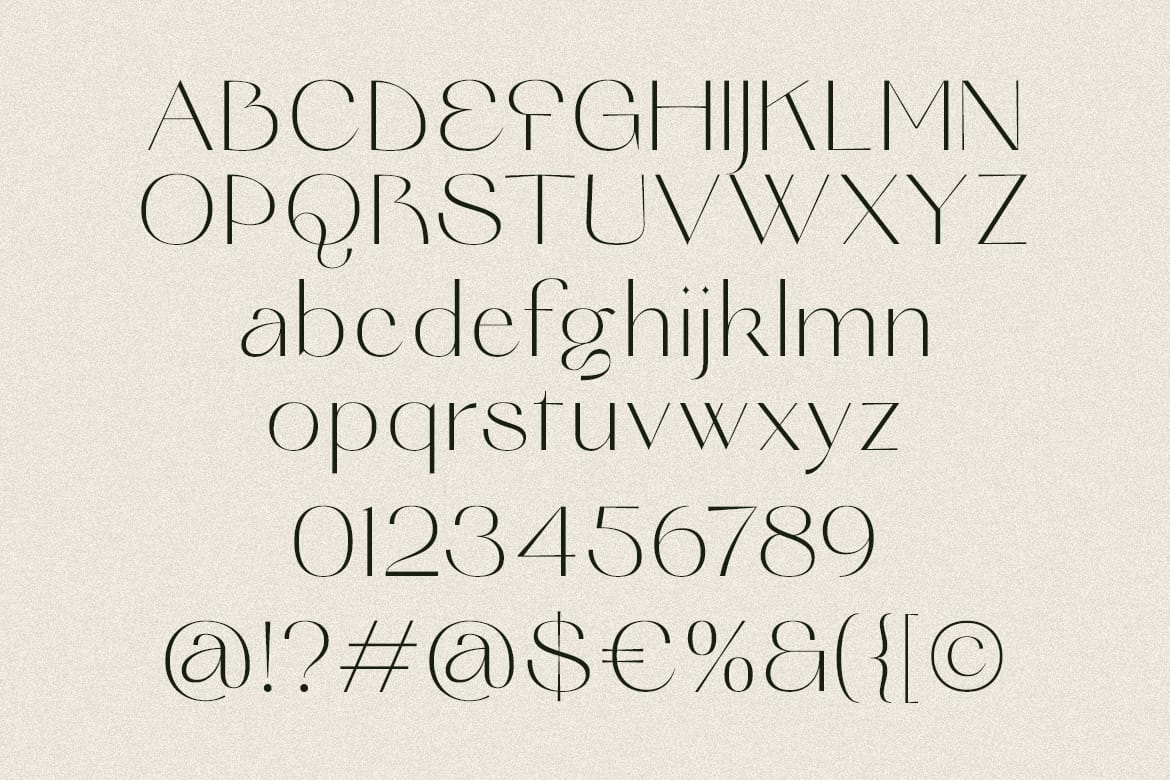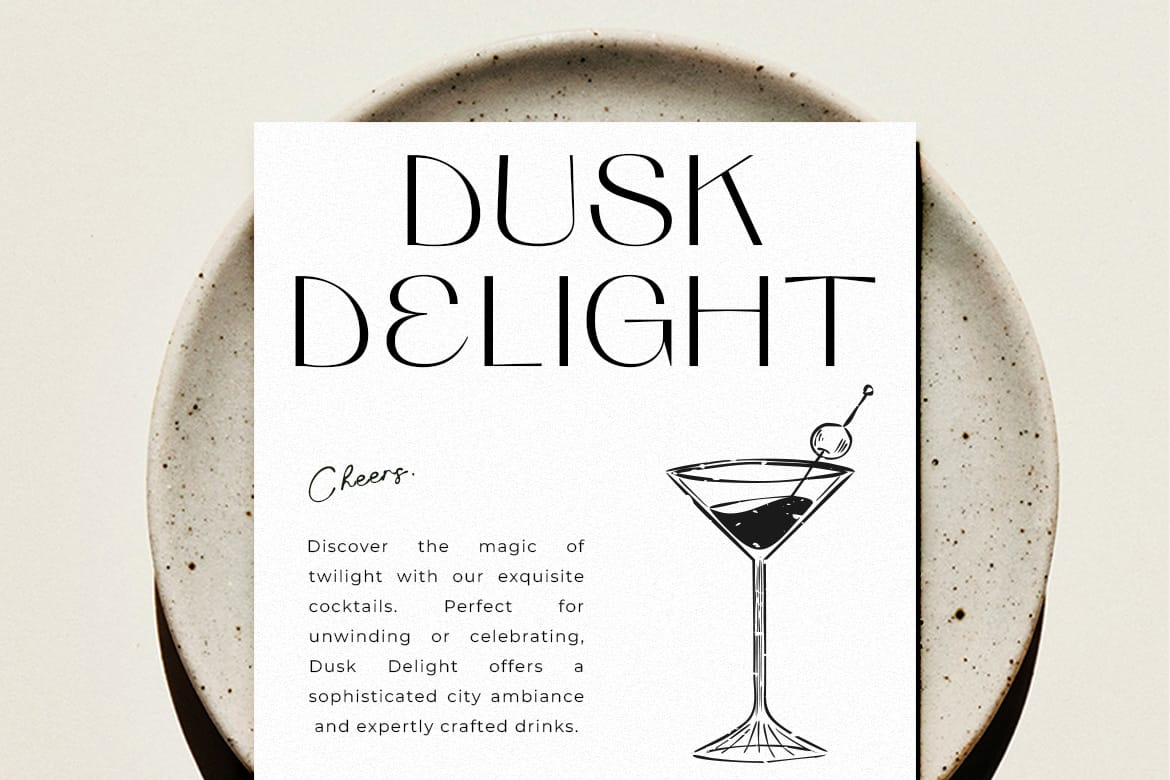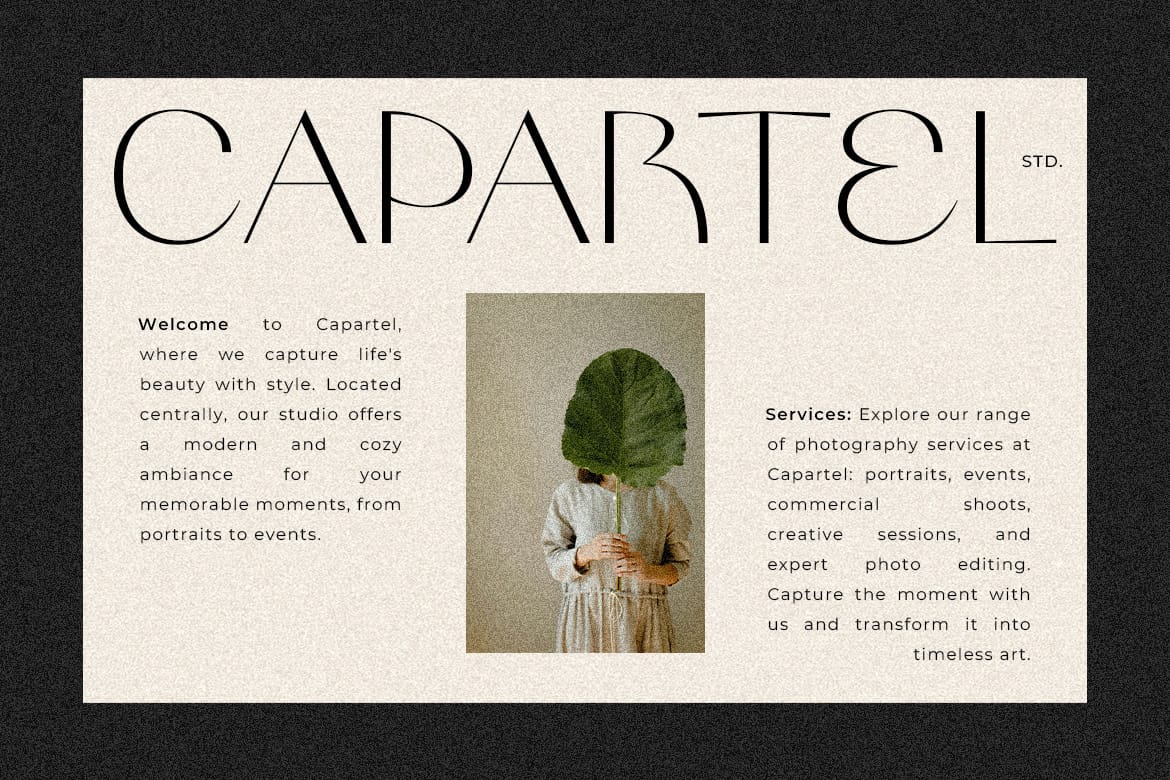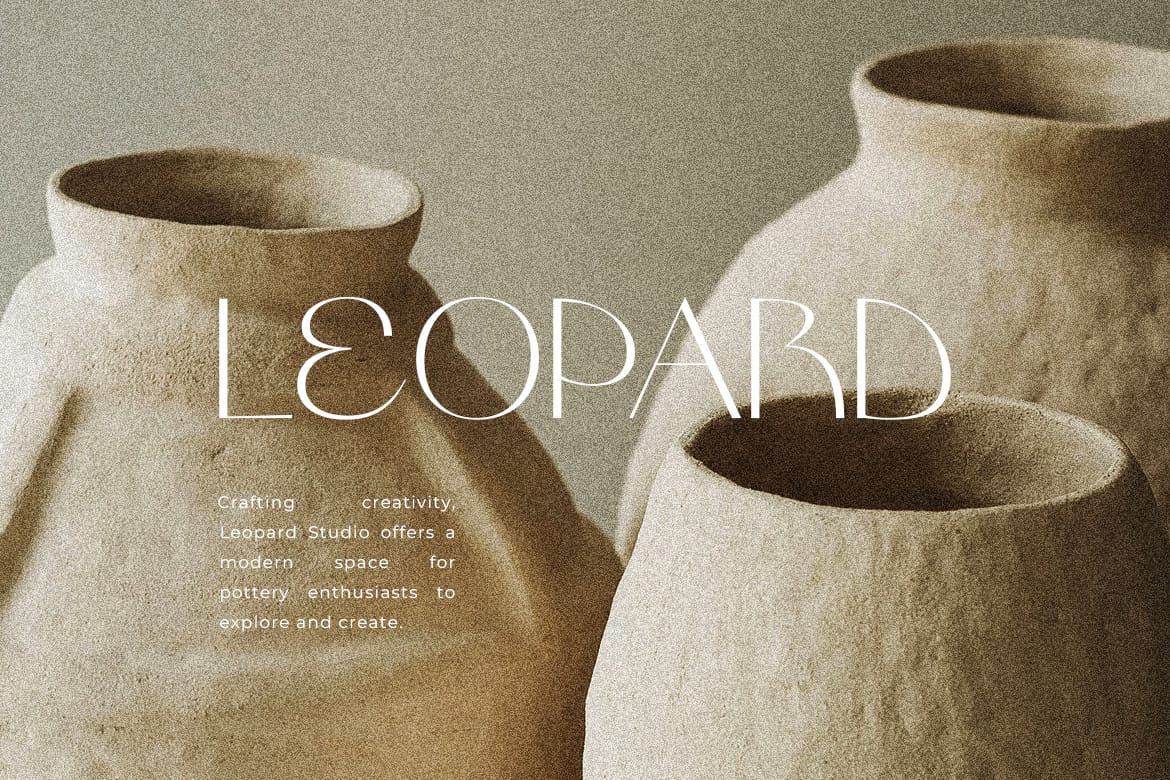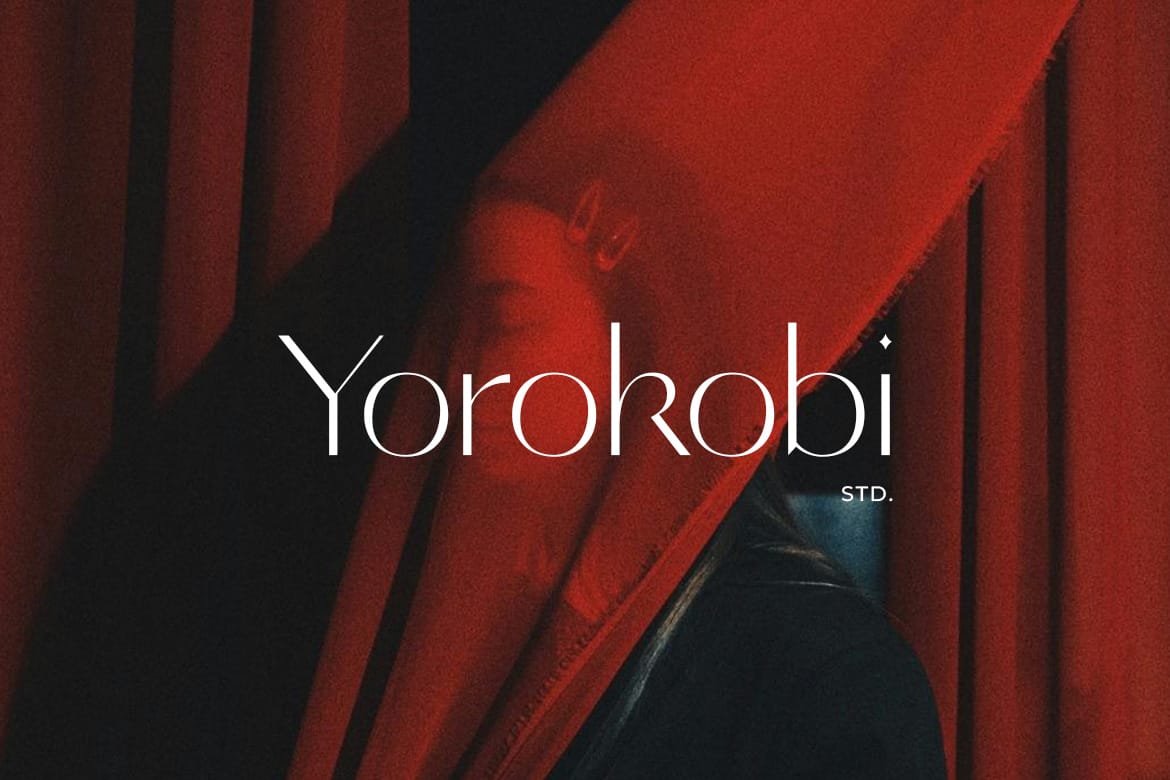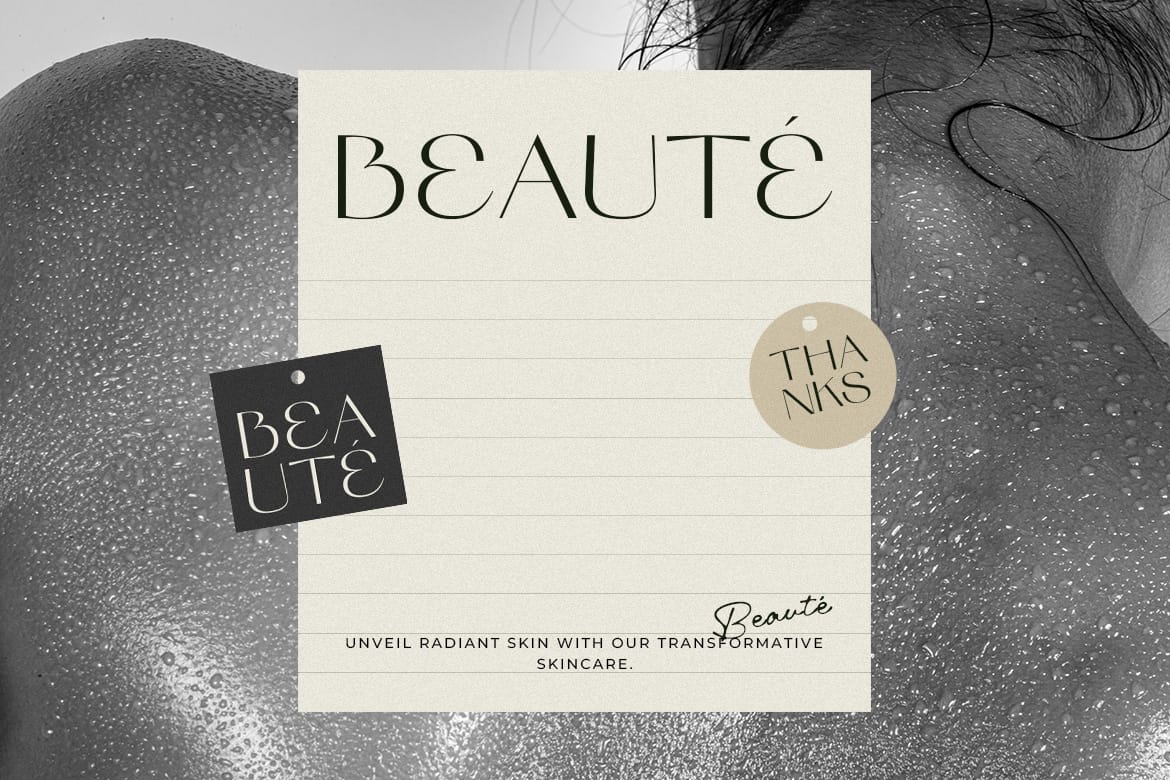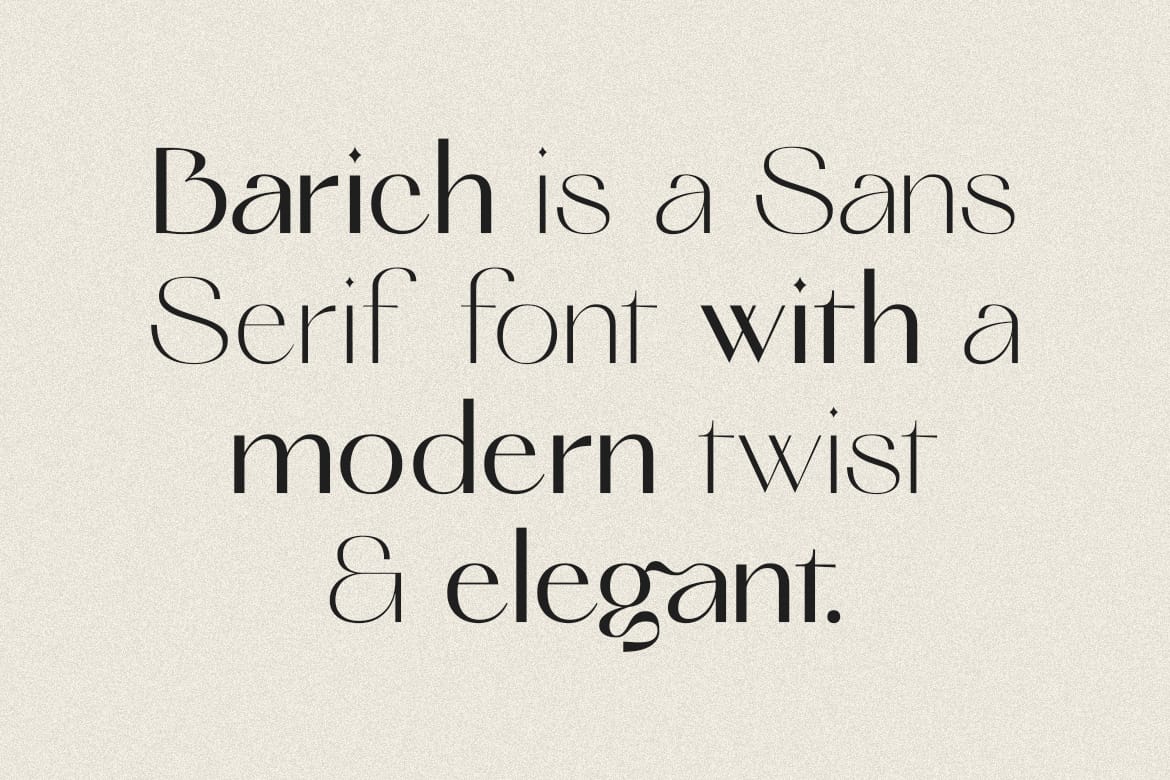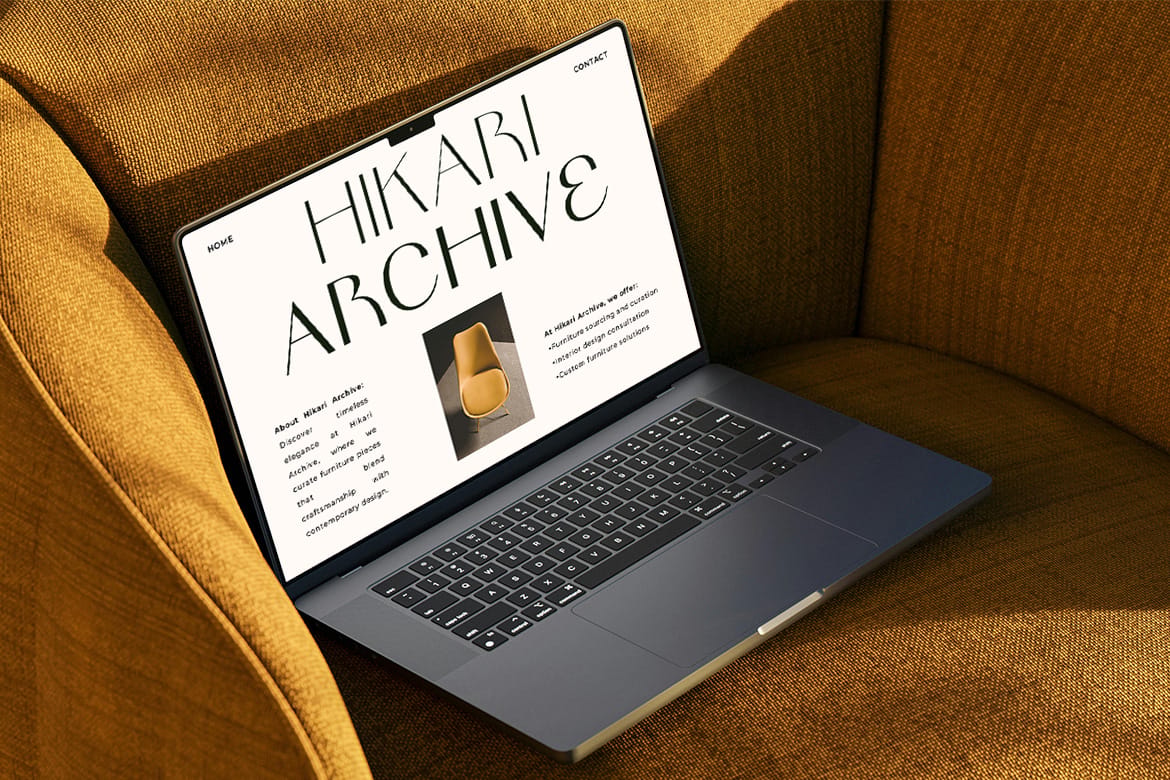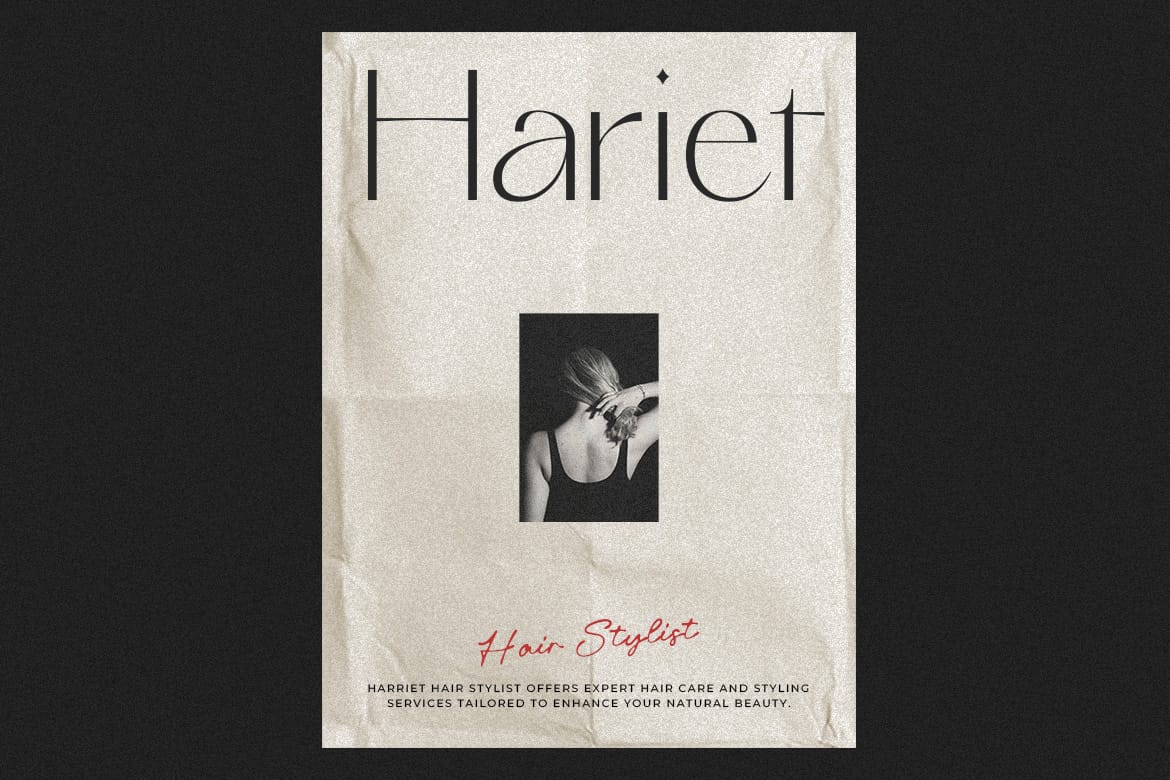
Barich Moderne Sans
Introducing this newest font family. Let's call him Barich. Charming appearance and beauty in every shape, making your design look modern and elegant. Suitable for logo design, posters, magazines, websites and more.
Features: Uppercase, Lowercase, Numeral, Punctuation & Multilingual.
- Charming sans serif font family
- Modern, elegant variable font